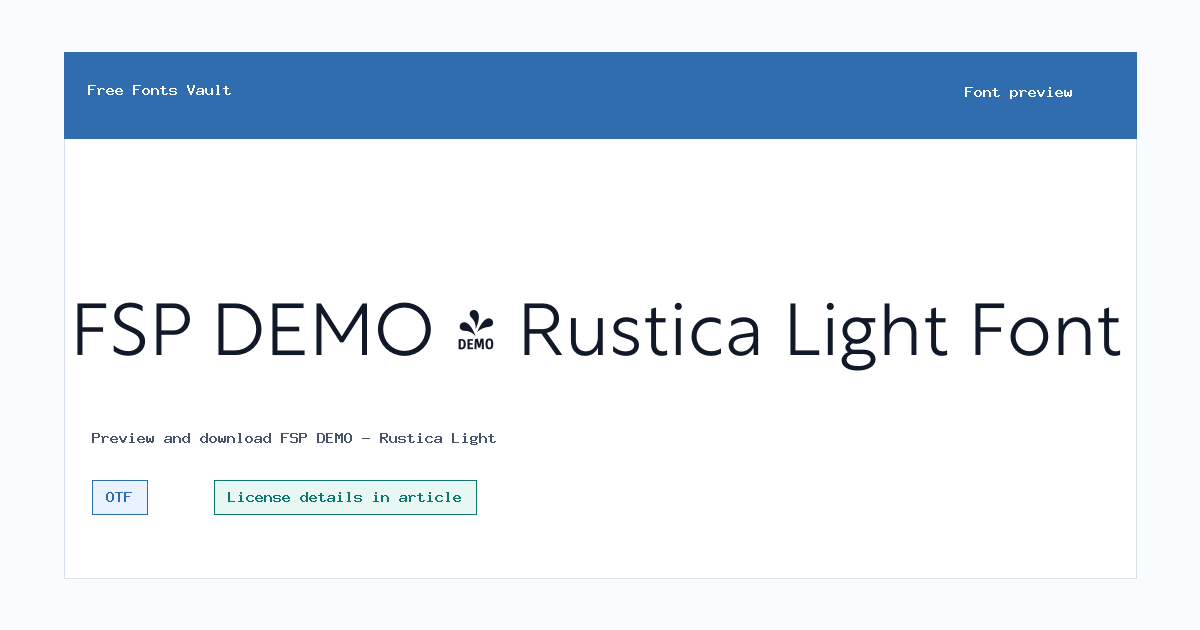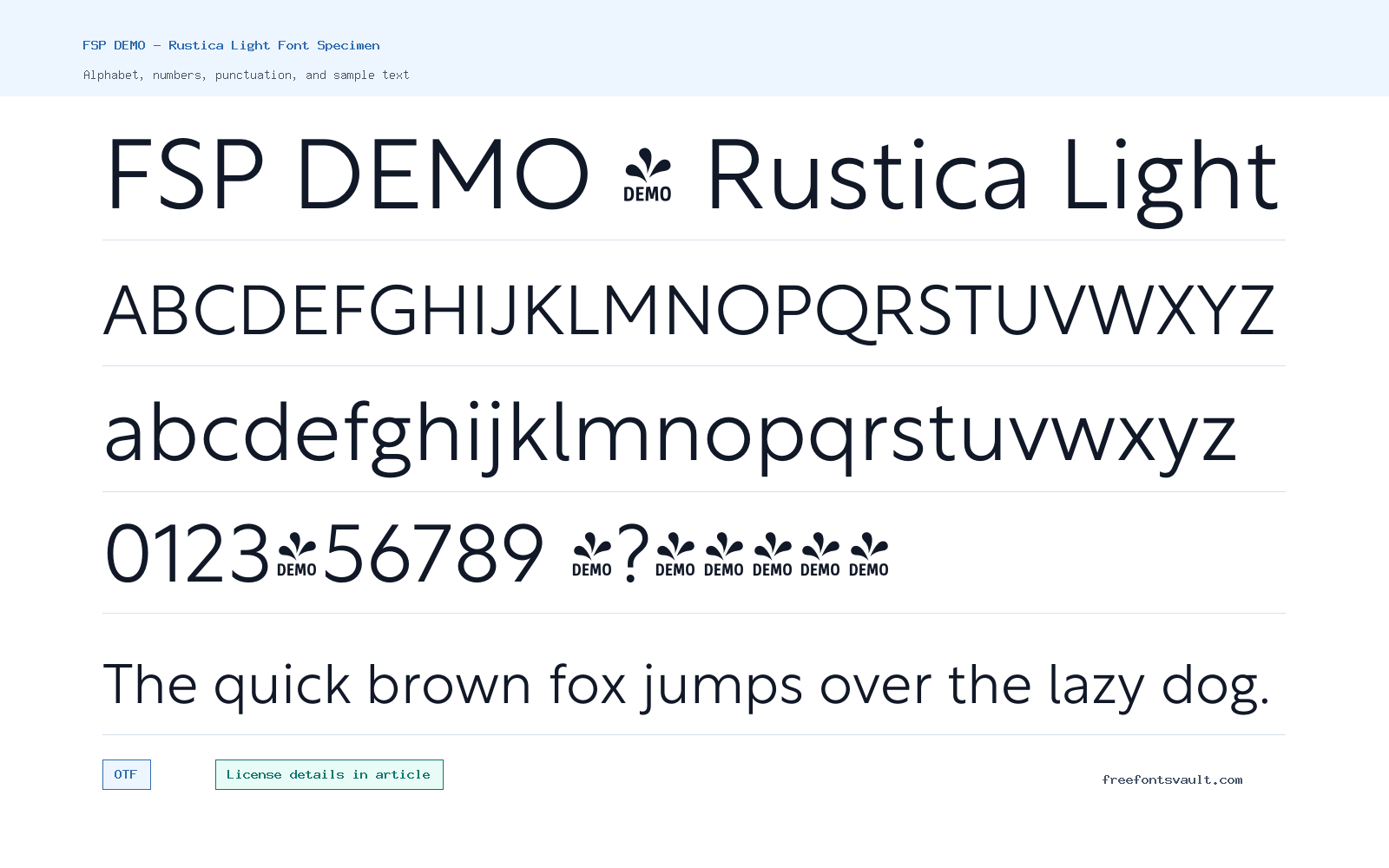
FSP DEMO - Rustica Light
FSP DEMO – Rustica Light font.
FSP DEMO – Rustica Light is a light-weight OTF font for visitors who want a softer, cleaner style in short text. The download contains one regular-style font file, so it is best to preview your exact wording before using it in a design.
About FSP DEMO – Rustica Light
FSP DEMO – Rustica Light uses a 300 weight, which gives the type a lighter feel than a regular or bold cut. That makes it useful when you want text to look calmer and less heavy on the page. Because the available file is a single regular variant, it is better suited to simple layouts than to projects that need a full family with bold, italic, or multiple weights. Try it first in the preview box with the same words you plan to use, especially if your design depends on small details, punctuation, or mixed-case text.
This font can work well for display text, headings, nameplates, quote graphics, packaging mockups, invitations, and other places where a light style has enough room to breathe. Avoid relying on it for long paragraphs until you test spacing and readability at the size you need. Light fonts can look elegant at larger sizes but may become too thin on small screens, low-resolution images, or busy backgrounds. If you use it over a photo or texture, increase contrast and give the letters enough clear space.
• Light 300 weight for a softer appearance than heavier cuts.
• Large headings and title text where the light weight remains readable.
• Quotes, invitations, and social graphics with short wording.
• Packaging concepts, labels, and presentation mockups that need a refined light style.
What weight is this font?
The included variant is a light 300 weight in normal style.
Can I use it for long paragraphs?
Test it first, but it is safer for short display text. Light fonts can become hard to read in long passages or at small sizes.